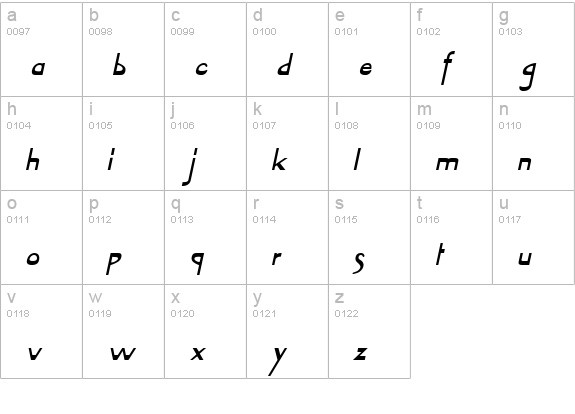
Tablet Bold Italic is a strong, high-contrast, italic variant in the Tablet typeface family \xE2\x80\x94 well suited to headlines, attention-grabbing titles, and strong calls-to-action.
Introducing the captivating and versatile Tablet Bold Italic font, a true gem among typography enthusiasts. This font embodies a perfect balance between boldness and elegance, with its unique blend of strong and slanted characters. Its bold weight adds an extra touch of confidence, while the italic style exudes a sense of sophistication and charm. Whether you're designing a striking headline, crafting a modern logo, or creating eye-catching graphics, the Tablet Bold Italic font is a remarkable choice that will effortlessly elevate your designs to new levels of excellence. Its distinctive personality and dynamic strokes make it a perfect fit for various creative projects, from branding and advertising to editorial design and beyond. What makes the Tablet Bold Italic font even more remarkable is that it is freely available to download at FontsMarket.com. This means that you can enjoy the beauty and versatility of this font without any limitations or barriers. With just a few clicks, you can bring this captivating font into your design toolkit and unlock a world of creative possibilities. Don't miss out on the opportunity to enhance your designs with the Tablet Bold Italic font. Download it today from FontsMarket.com and witness the transformative power of this exceptional typeface. Whether you're a professional designer or a passionate enthusiast, this font will undoubtedly become an invaluable asset in your creative endeavors. So go ahead, unleash your creativity, and let the Tablet Bold Italic font guide you towards stunning and impactful designs.